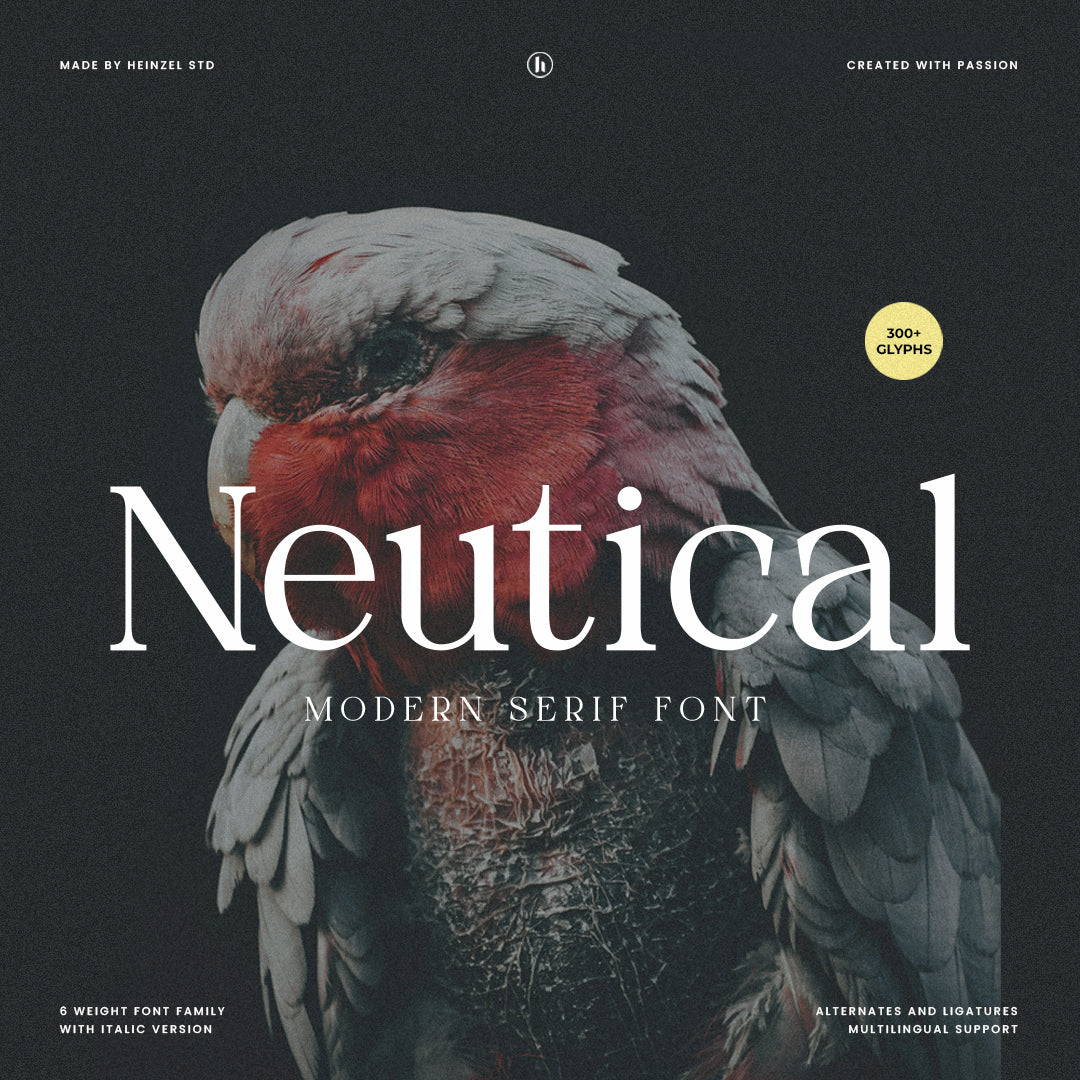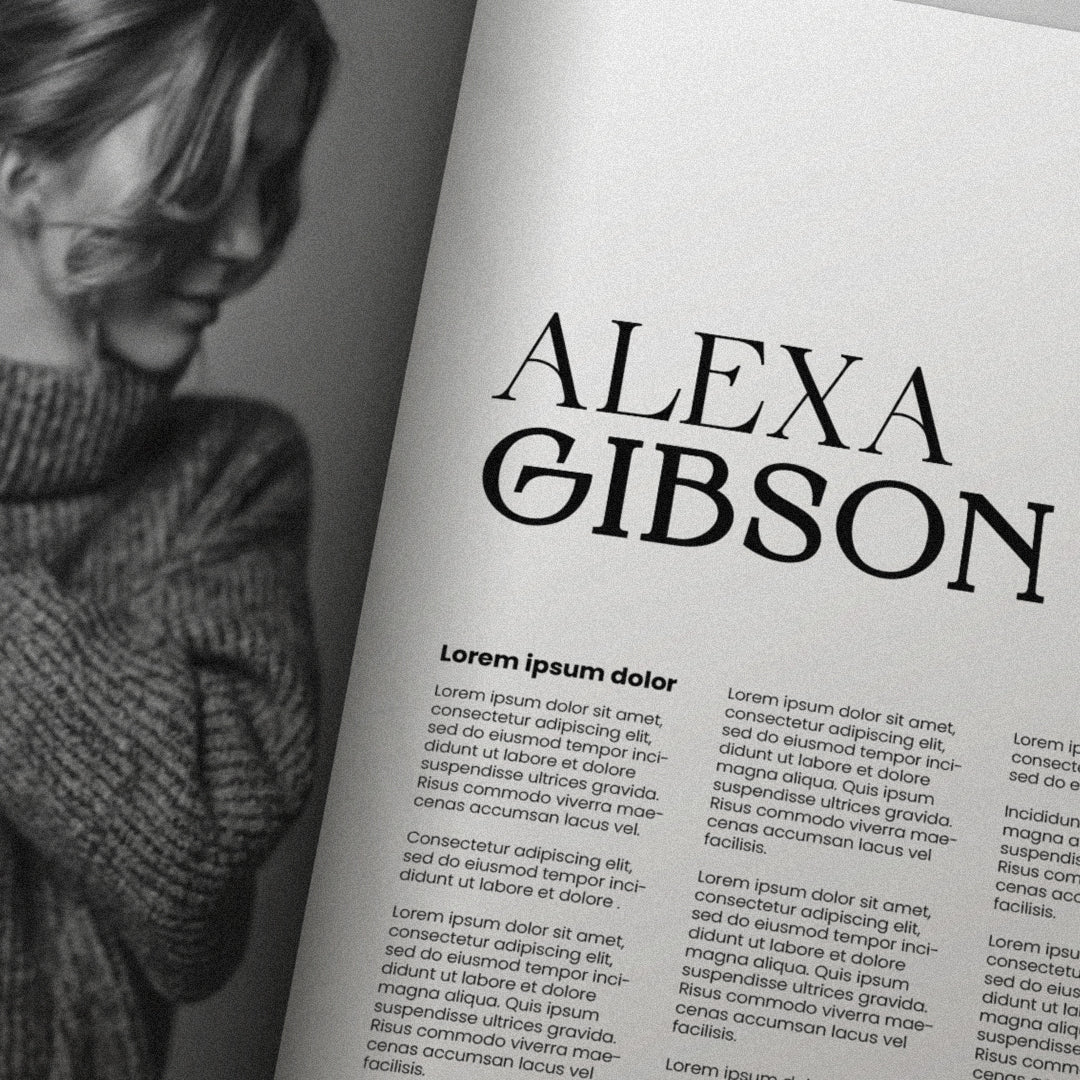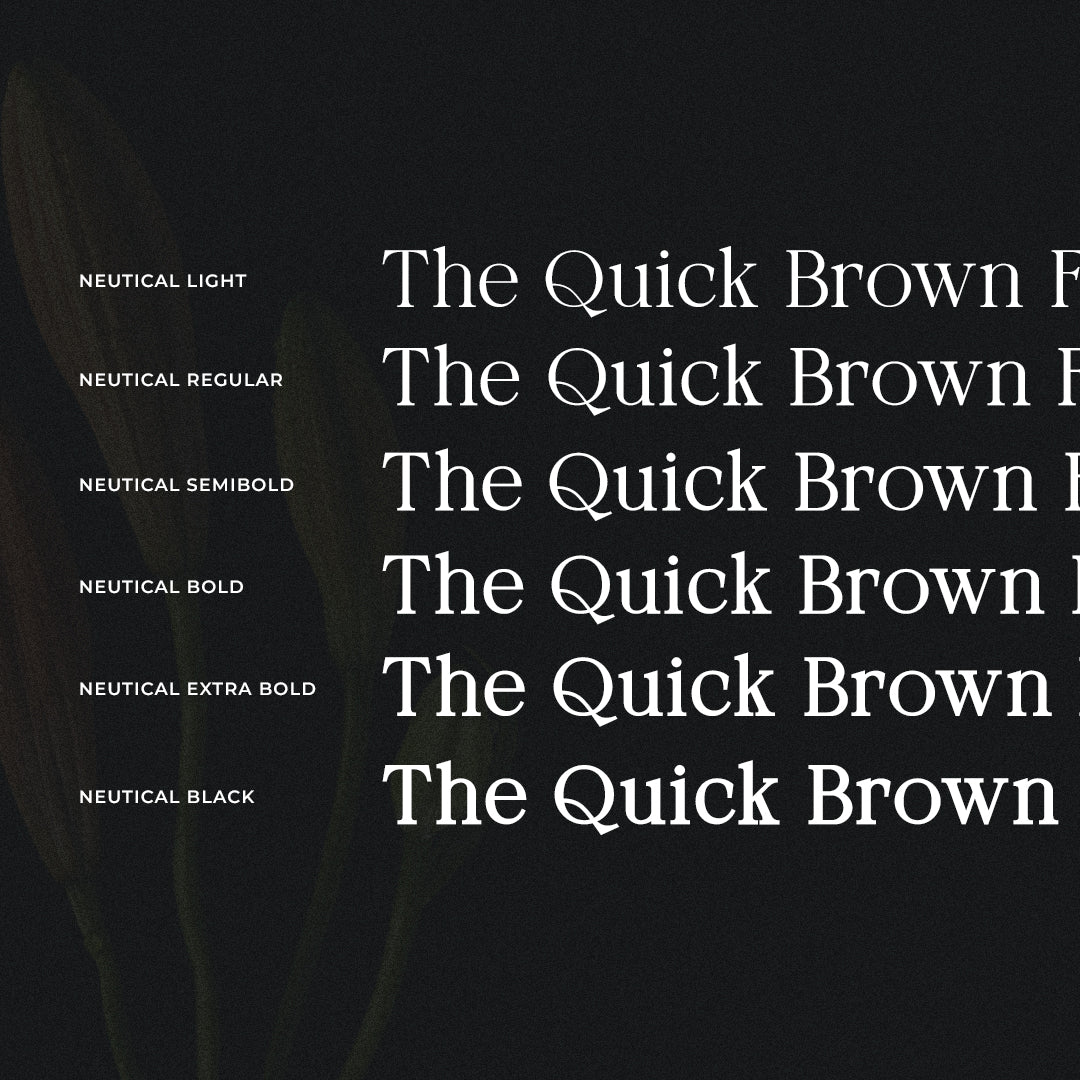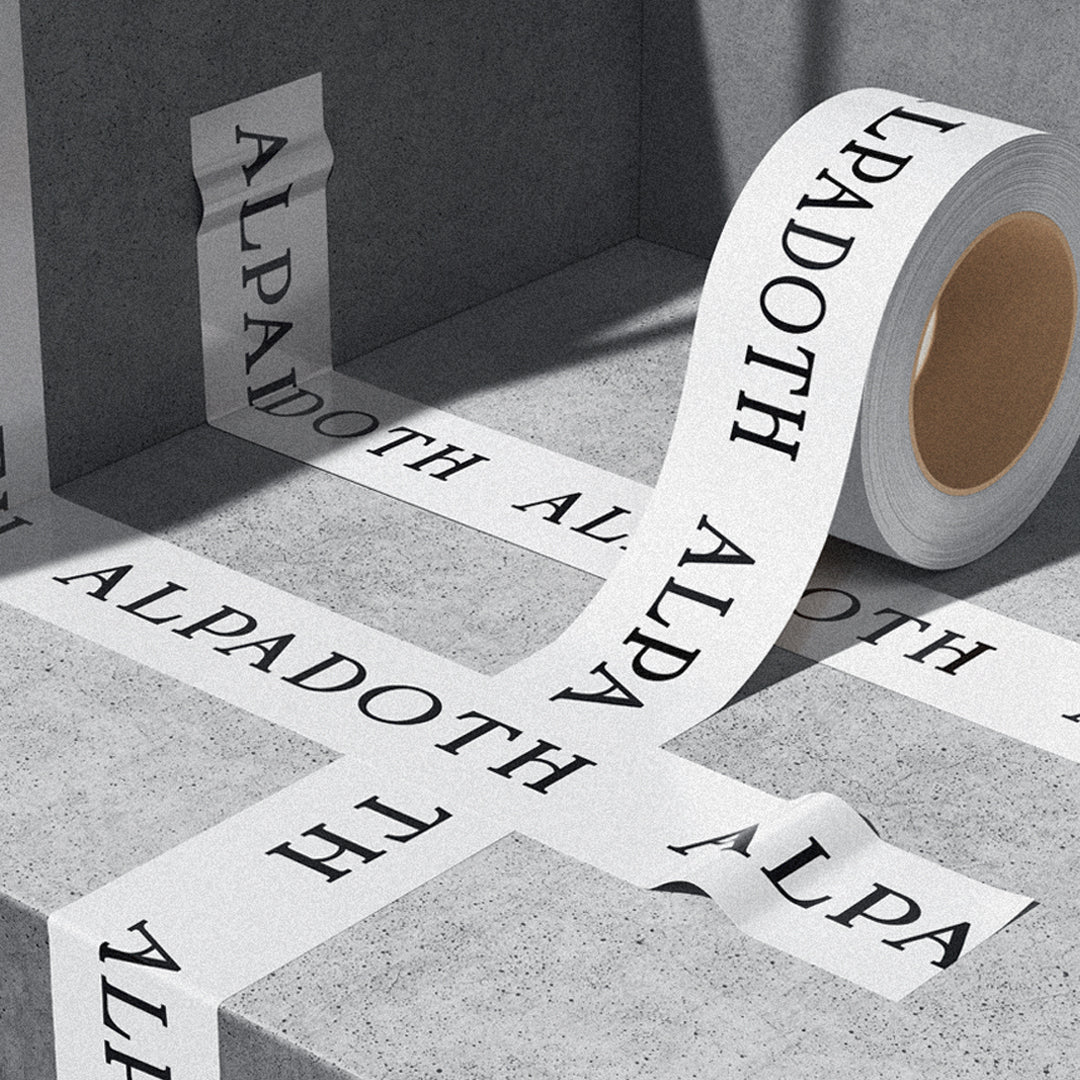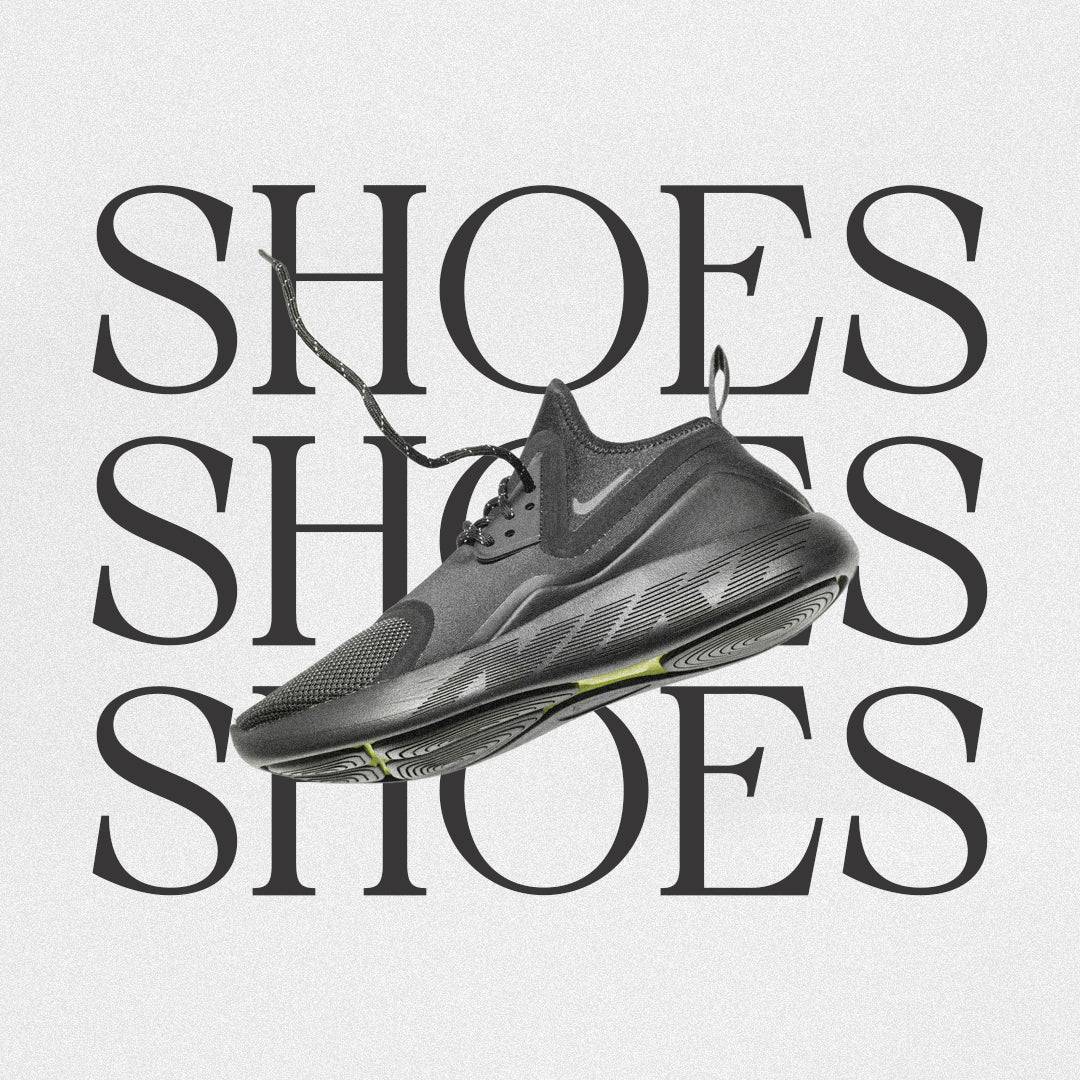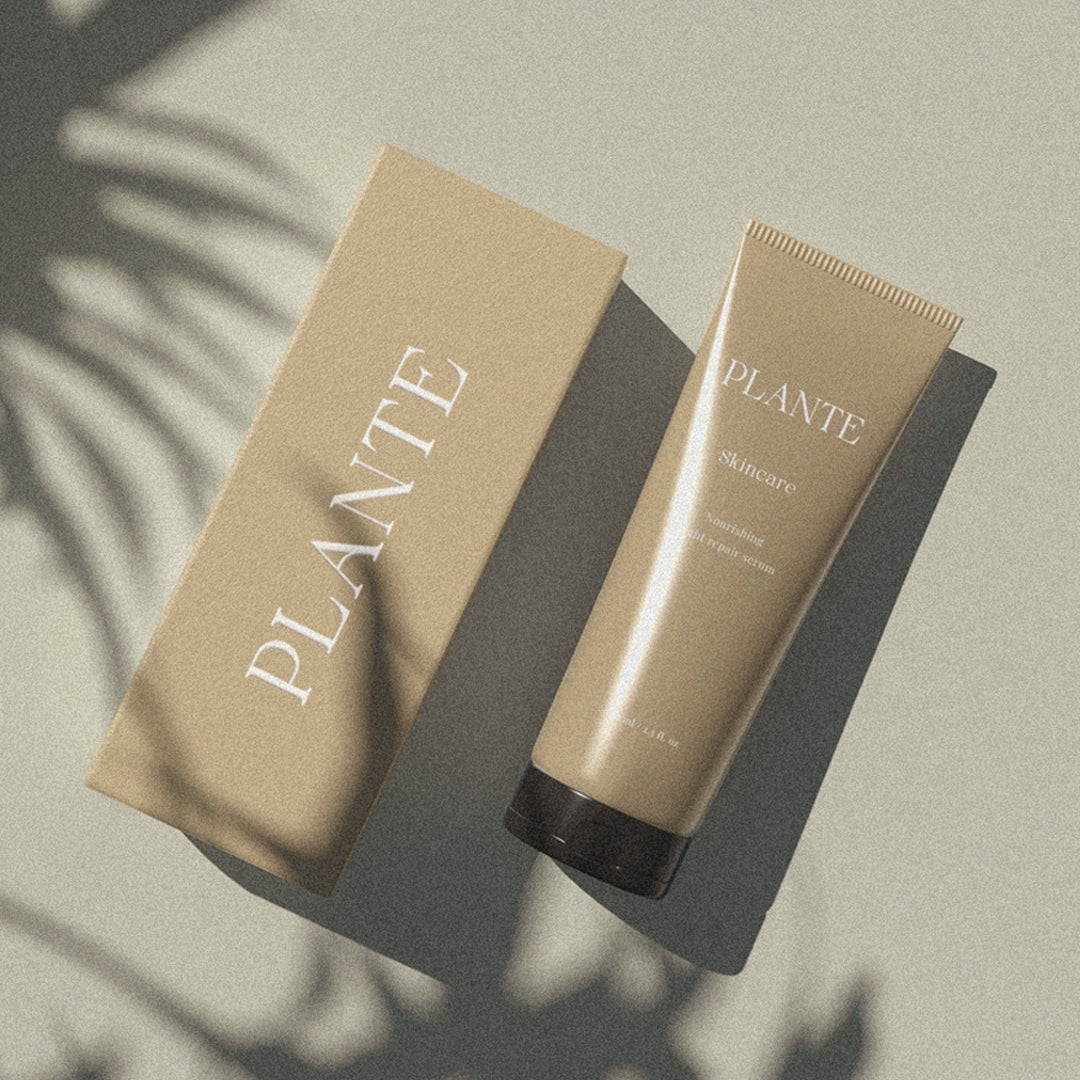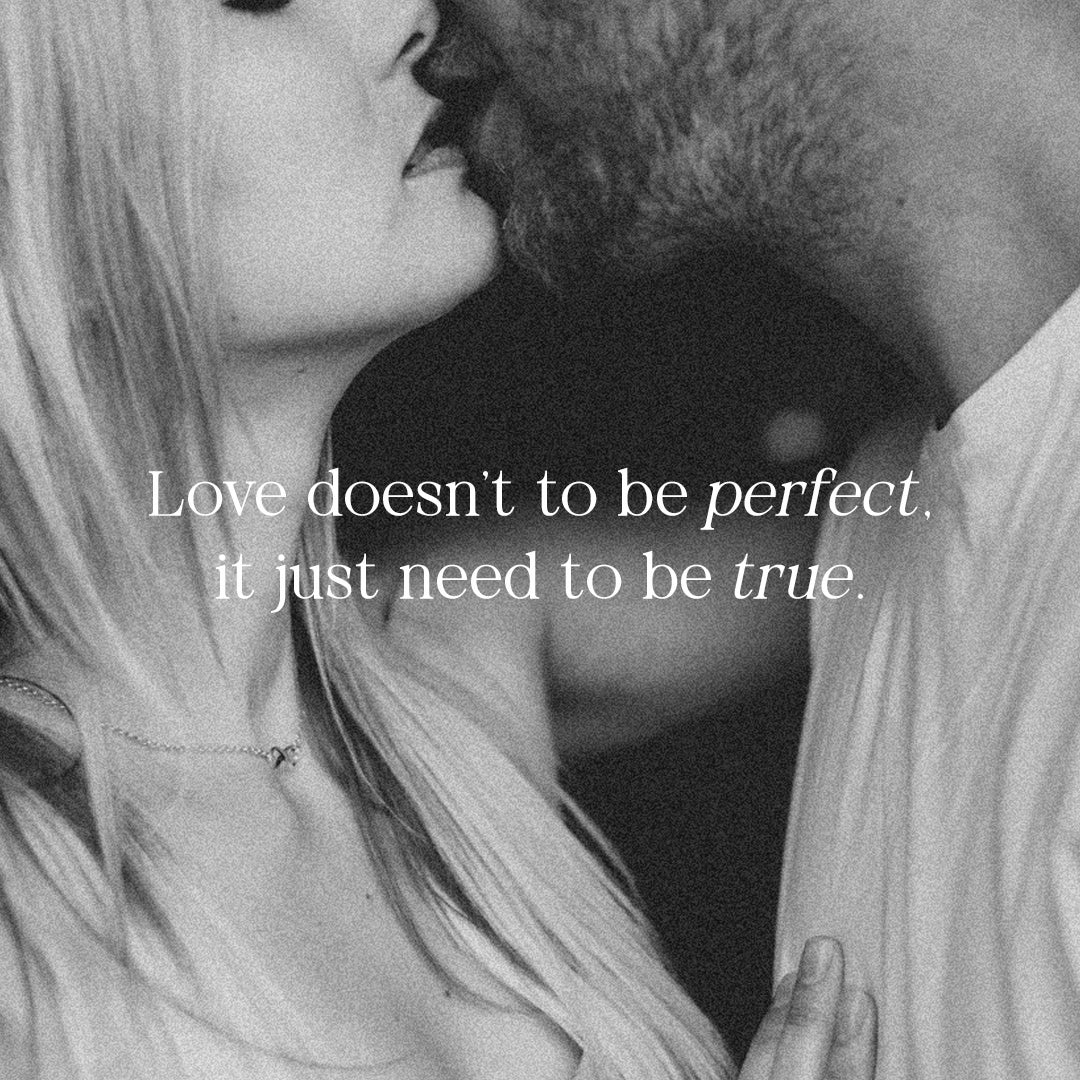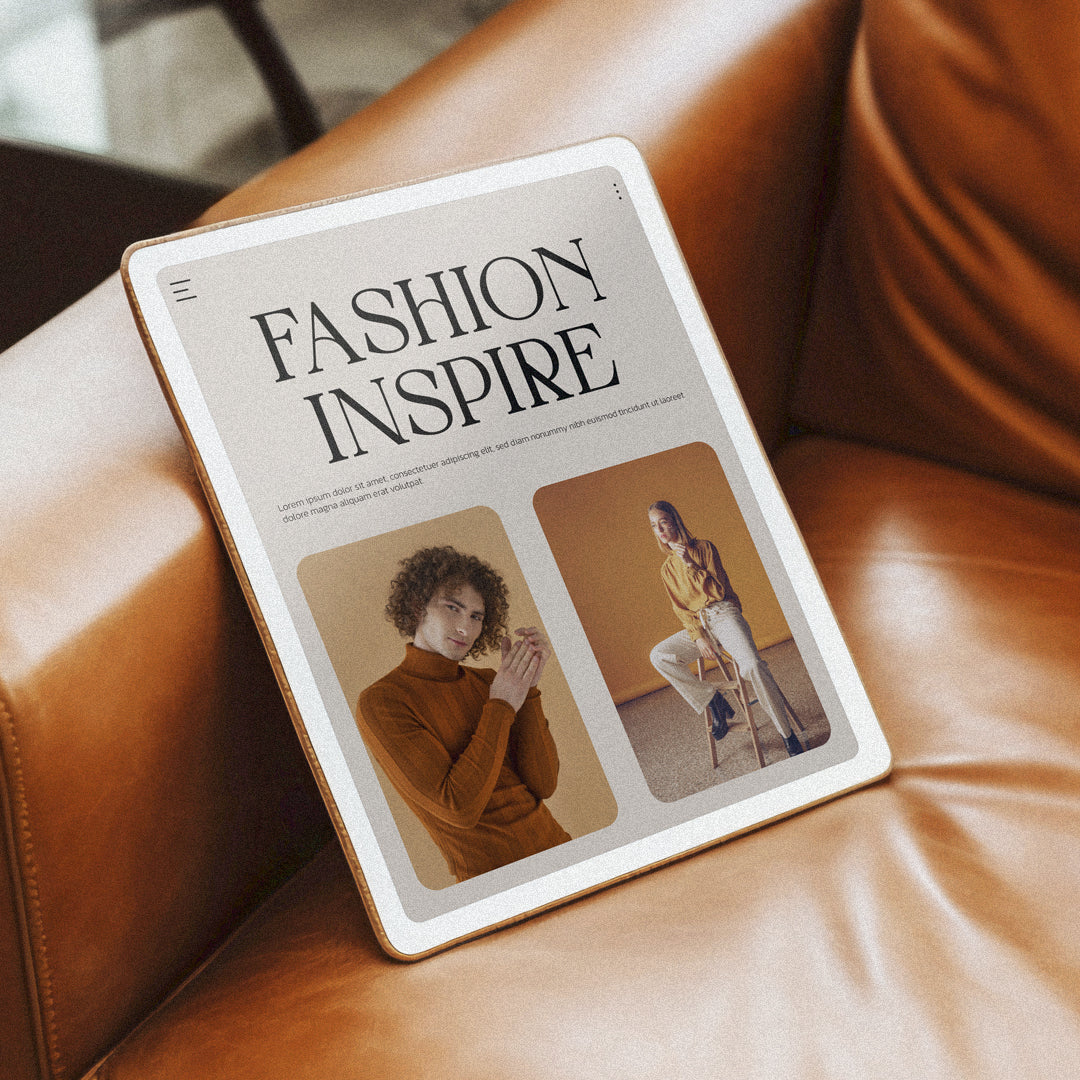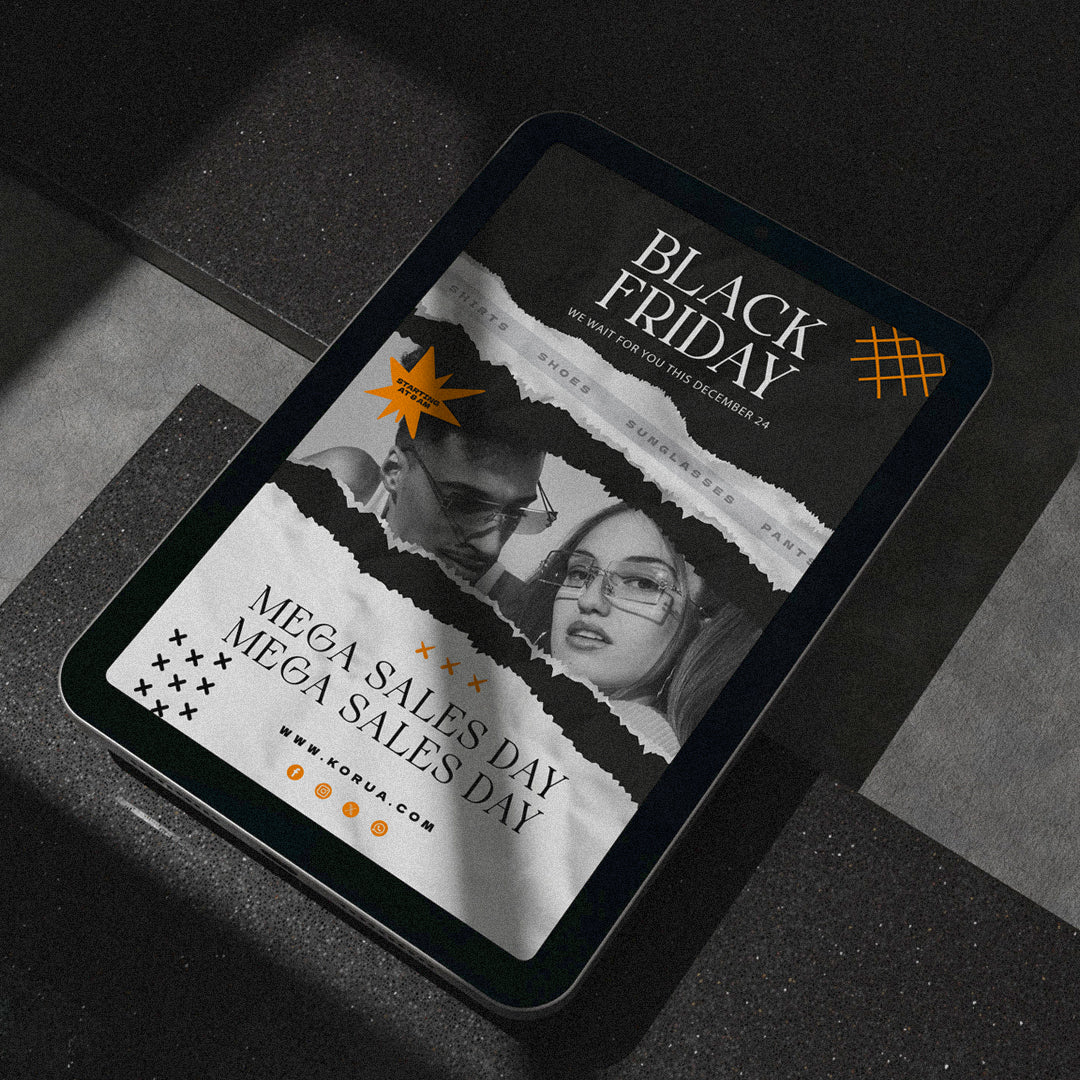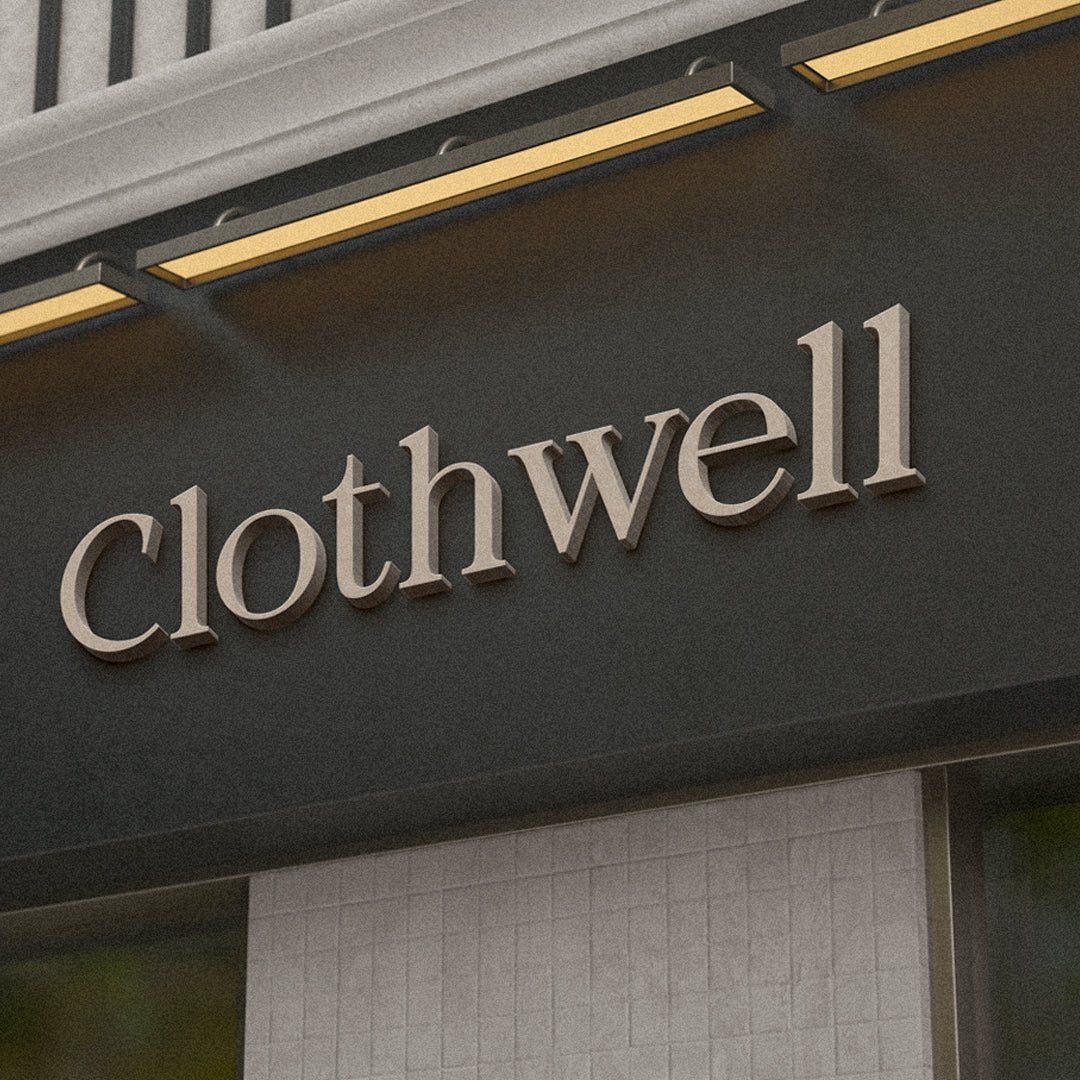
Neutical Modern Serif Font Family (6 Weights)
Neutical is a sophisticated modern serif font family designed to bring elegance, contrast, and contemporary character to your typography. With its refined high-contrast serifs and beautifully balanced proportions, Neutical is ideal for brands and designers looking for a luxurious yet modern visual identity.
The Neutical font family includes 6 weights with italic versions, giving you plenty of flexibility for creating expressive typographic compositions. From delicate headlines to bold statements, each style maintains a distinctive editorial personality while remaining highly versatile.
Neutical includes 300+ glyphs, along with stylish alternates and ligatures that allow you to create unique and polished typography. Multilingual support makes the family suitable for a wide range of international design projects.
Perfect for fashion branding, luxury logos, editorial design, magazines, beauty packaging, wedding stationery, posters, social media graphics, invitations, headlines, and sophisticated advertising campaigns.
Neutical is a modern serif font family with 6 weights and matching italics, featuring high-contrast serifs and balanced proportions. It includes 300+ glyphs, stylistic alternates, ligatures, and multilingual character support.